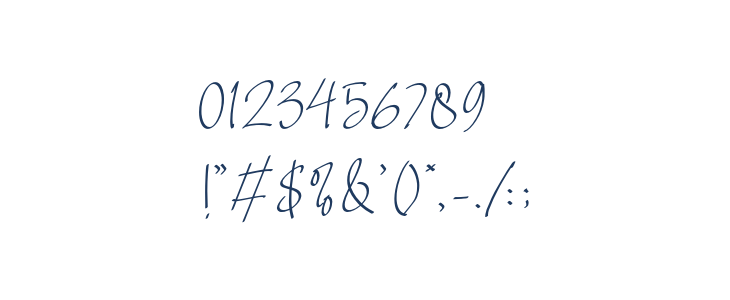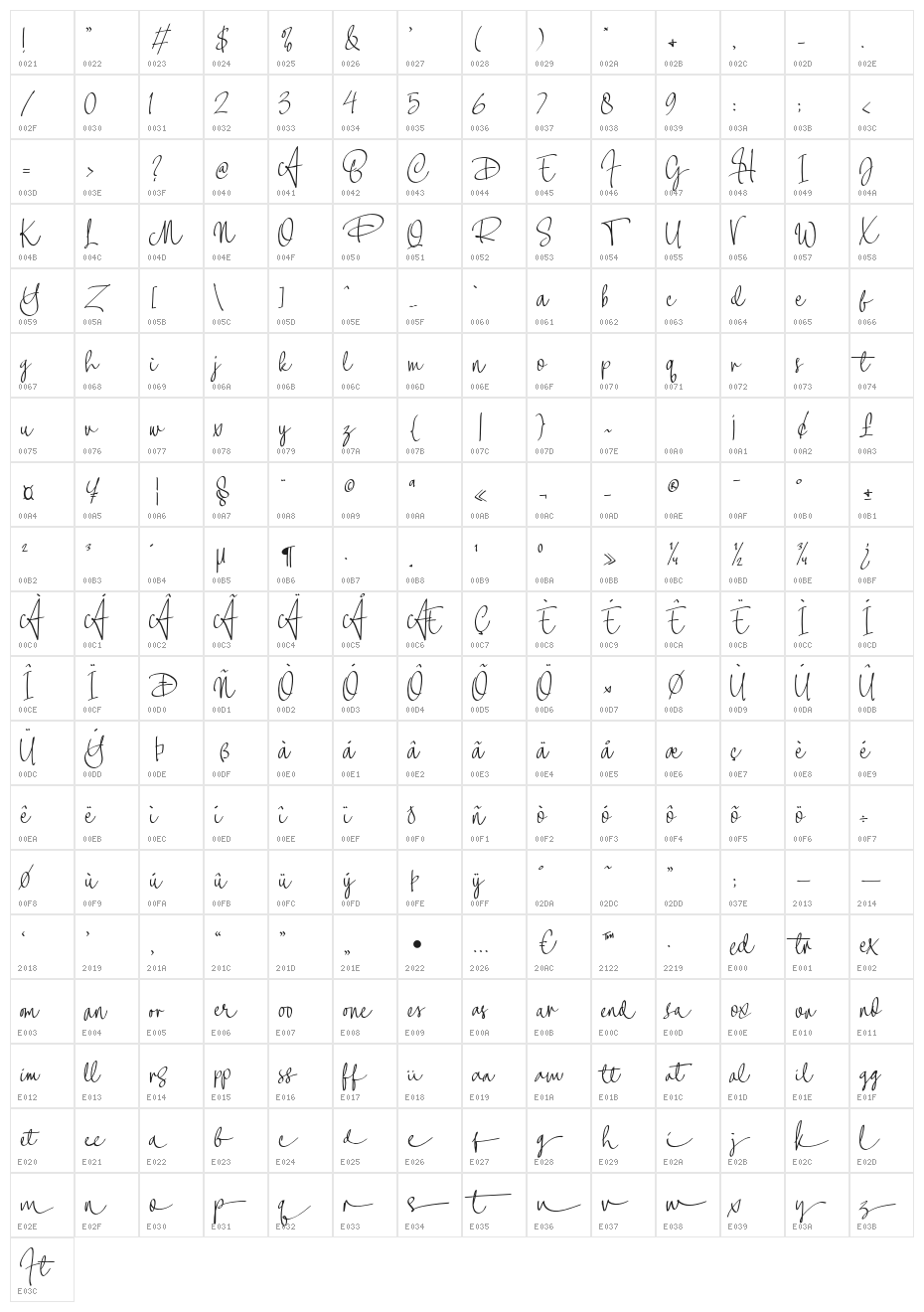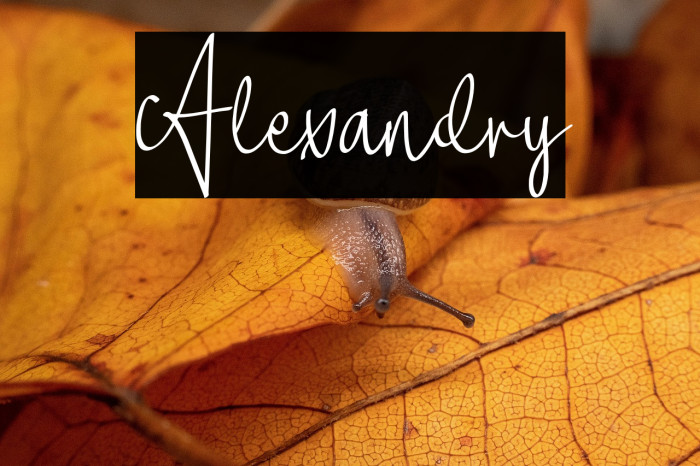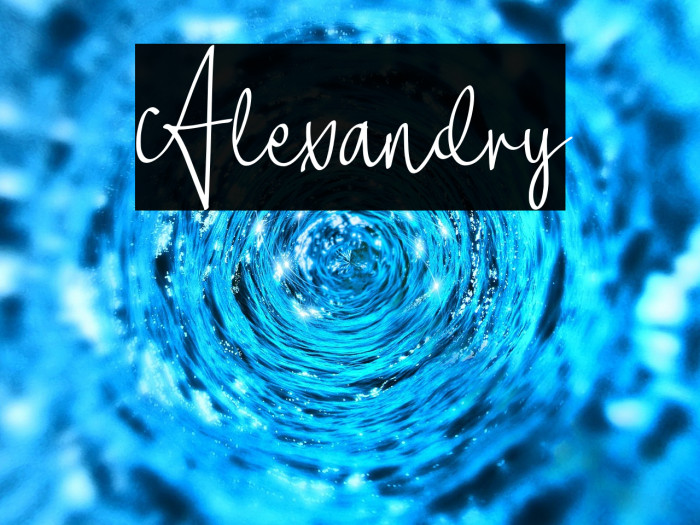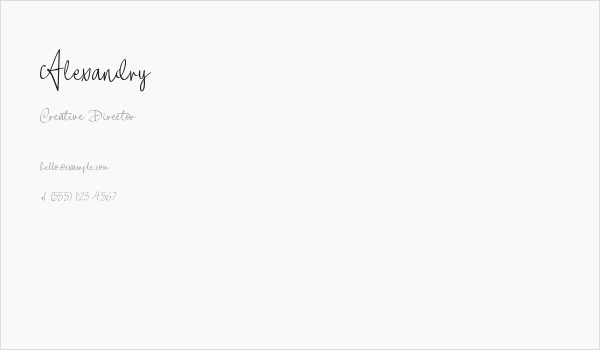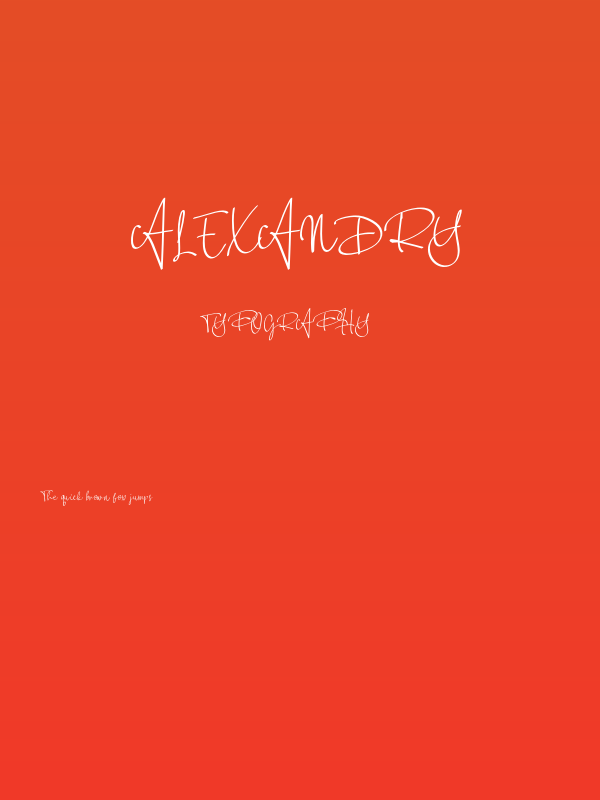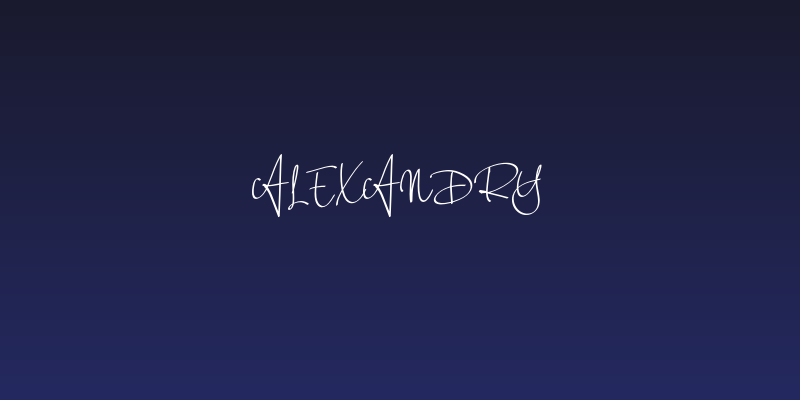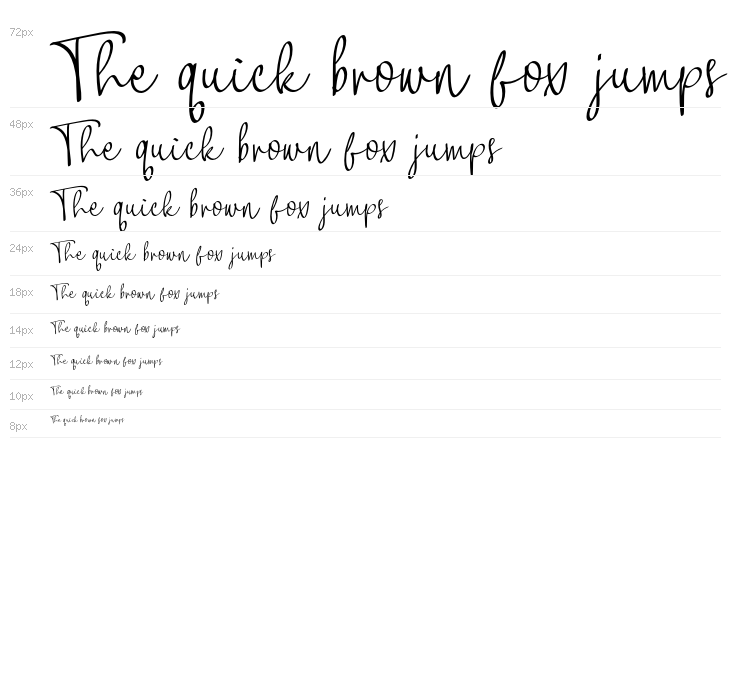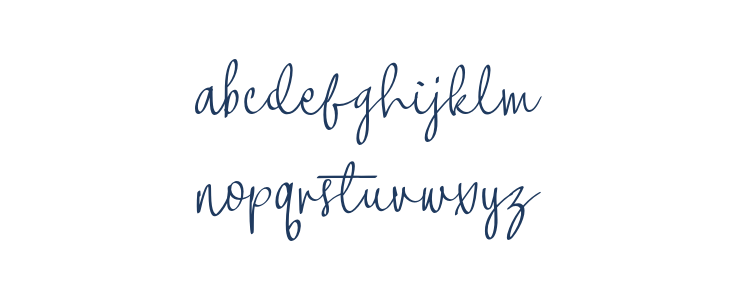
Alexandry Font
Alexandry Description
This font features an elegant, flowing script style with a handwritten appearance. The uppercase letters are characterized by their sweeping curves and loops, giving a sense of fluidity and grace. The lowercase letters maintain a consistent style, with smooth connections between characters, enhancing the cursive look. Numbers and special characters are designed to complement the overall aesthetic, maintaining the same flowing and artistic quality. The font's design is both sophisticated and approachable, making it suitable for a variety of creative applications.
| Overall Style | Elegant, Handwritten |
| Proposed Projects | Ideal for wedding invitations, greeting cards, branding projects, and elegant packaging designs. |